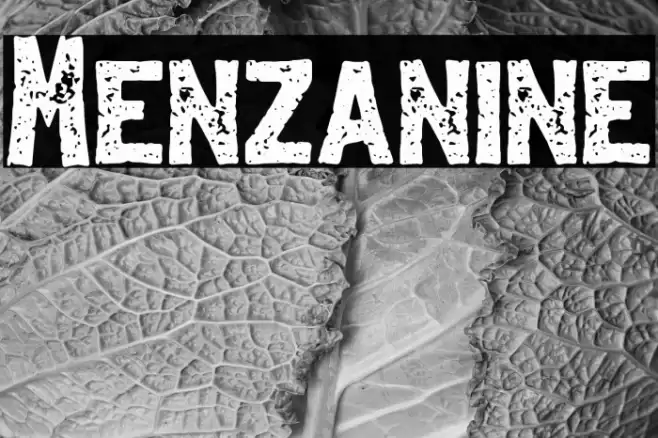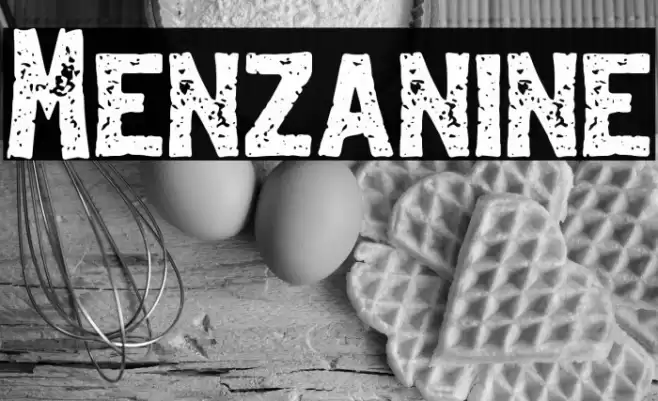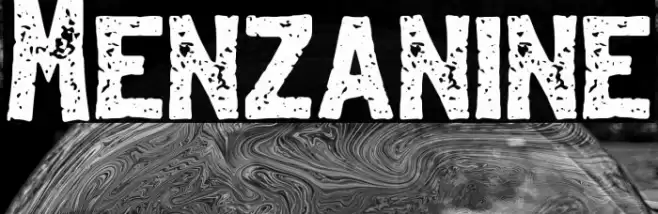
Menzanine Font
Menzanine Description
This font features a bold, distressed style with a textured appearance that gives it a rugged, vintage feel. The uppercase letters are uniformly bold, with a rough, weathered texture that suggests a sense of age and character. The design is reminiscent of old printing techniques, where ink might not fully cover the paper, resulting in a unique, imperfect look. This font is ideal for projects that require a touch of nostalgia or a handcrafted aesthetic, making it perfect for vintage-themed designs, posters, or branding that seeks to evoke a sense of history and authenticity.
A bold, distressed font with a vintage, textured appearance from Regular fonts.
- Proposed Projects: Ideal for vintage-themed designs, posters, branding, and projects requiring a handcrafted aesthetic.
- Overall Style: Vintage